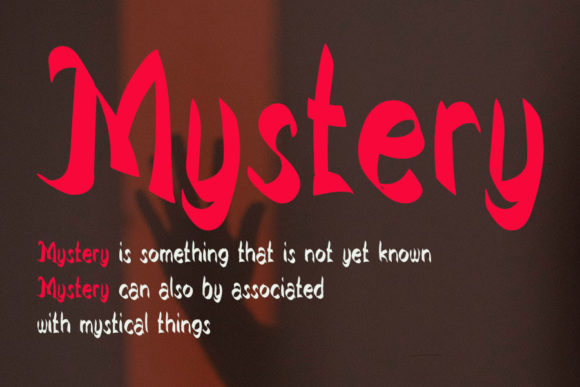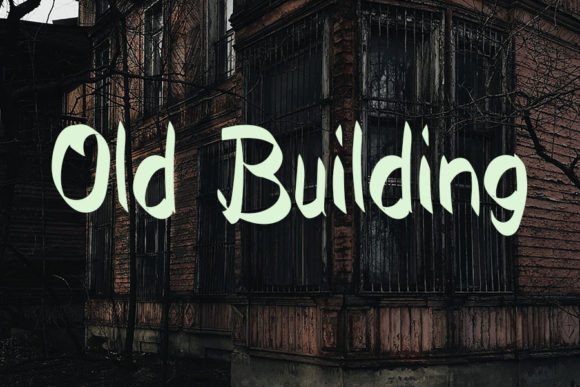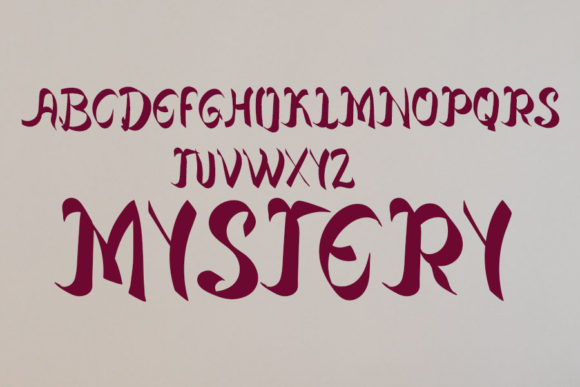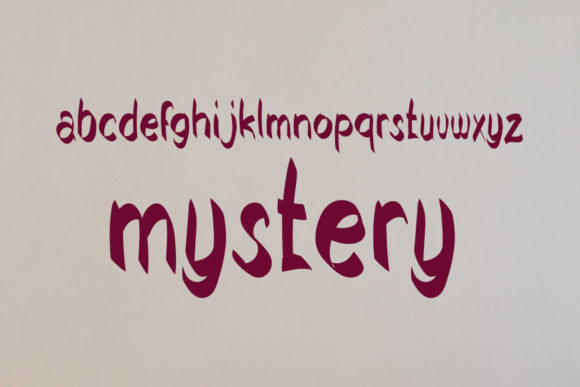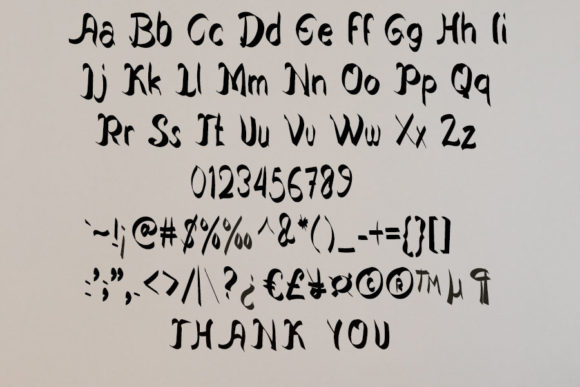
Mystery Font
About Mystery Font
Mystery is a gorgeous, paint brushed handwritten font, carefully designed to become a true favorite. It maintains its classy calligraphic influences while feeling contemporary and fresh.